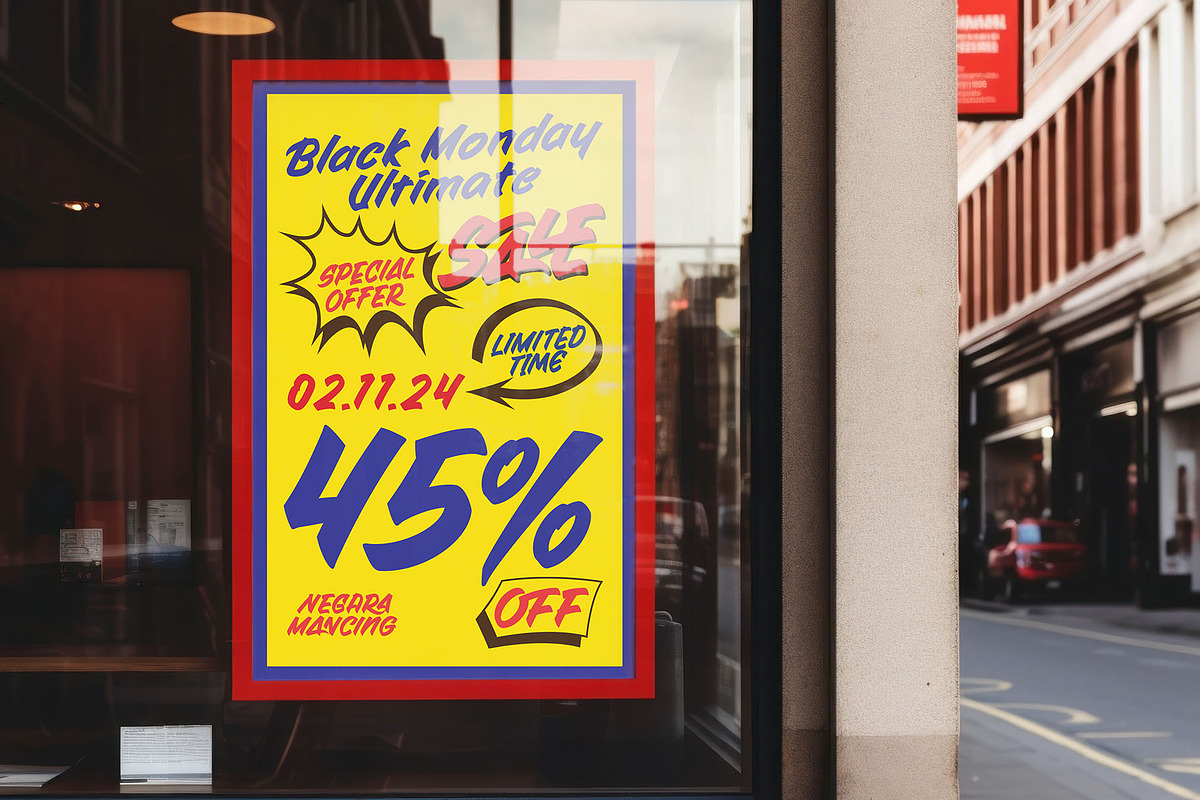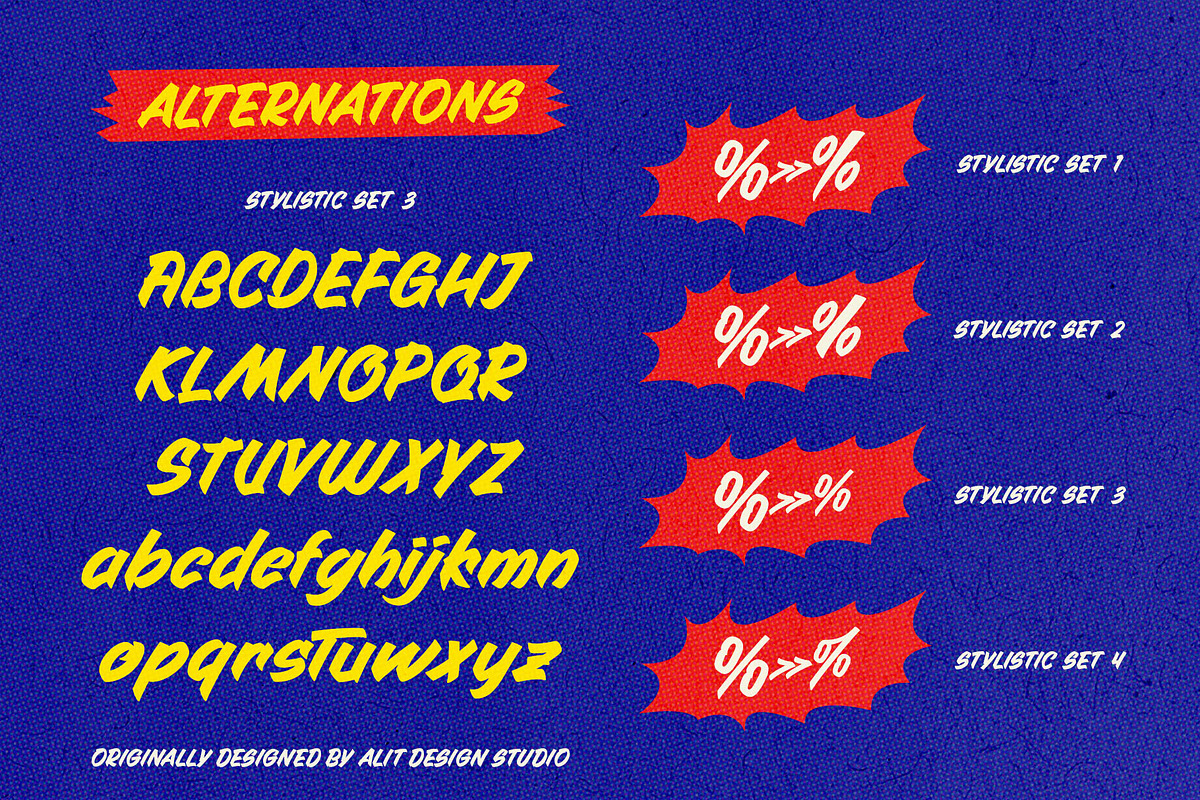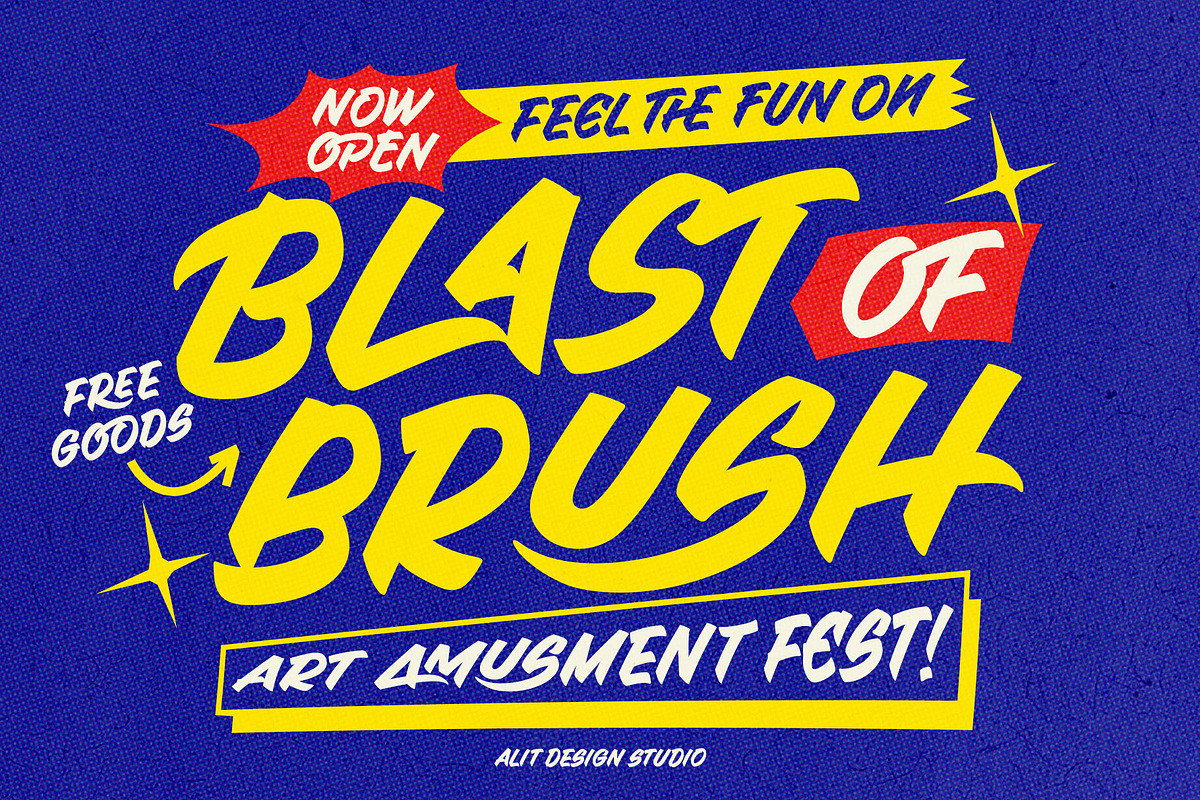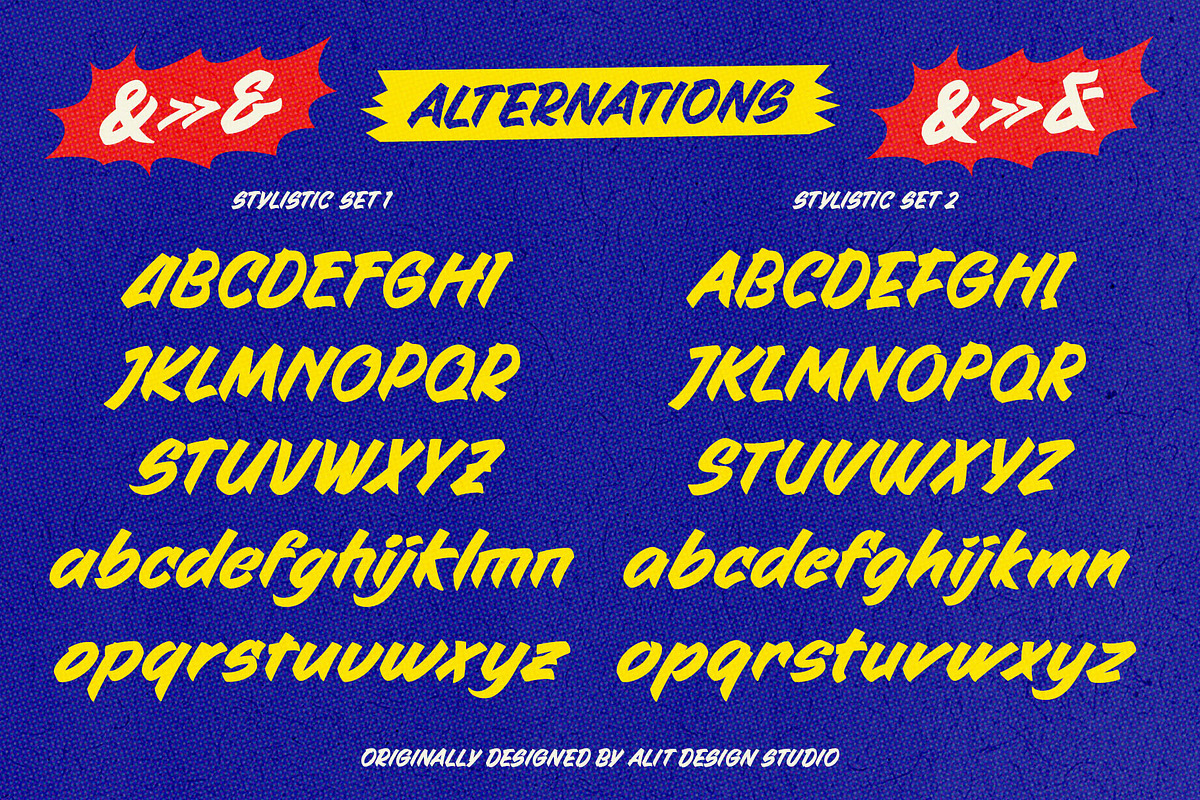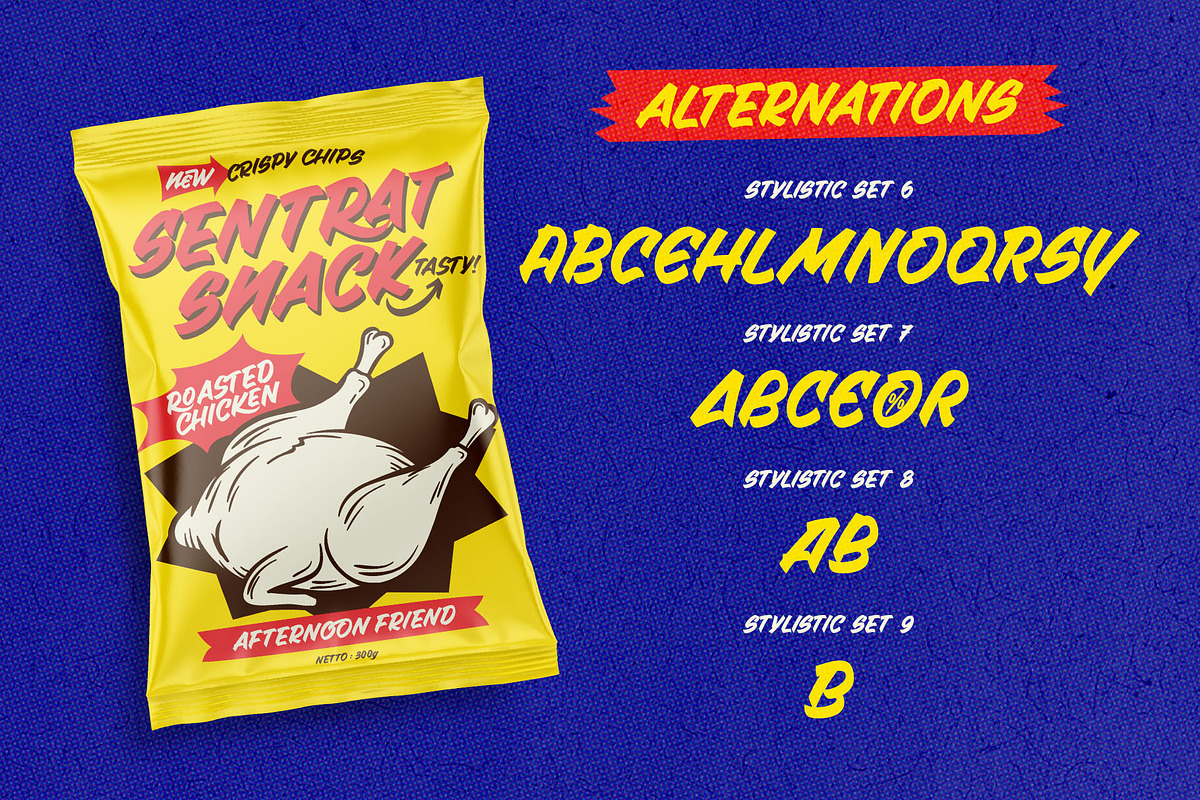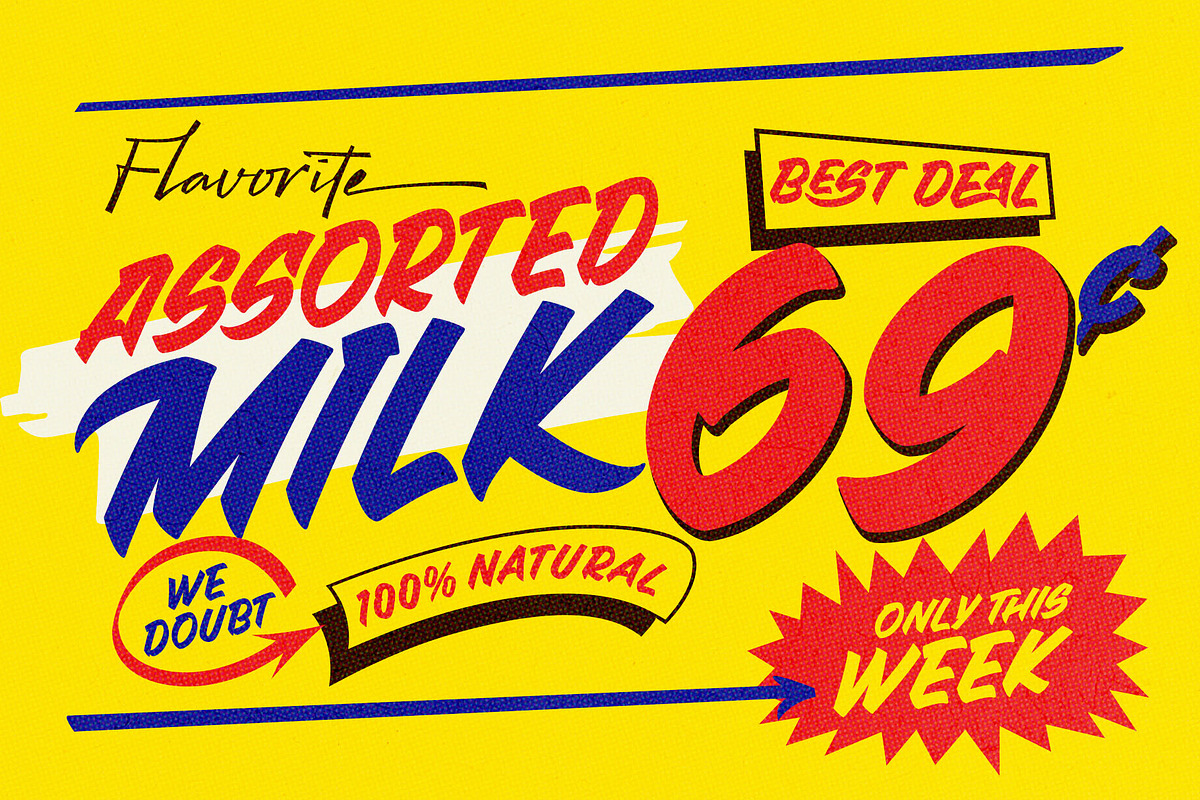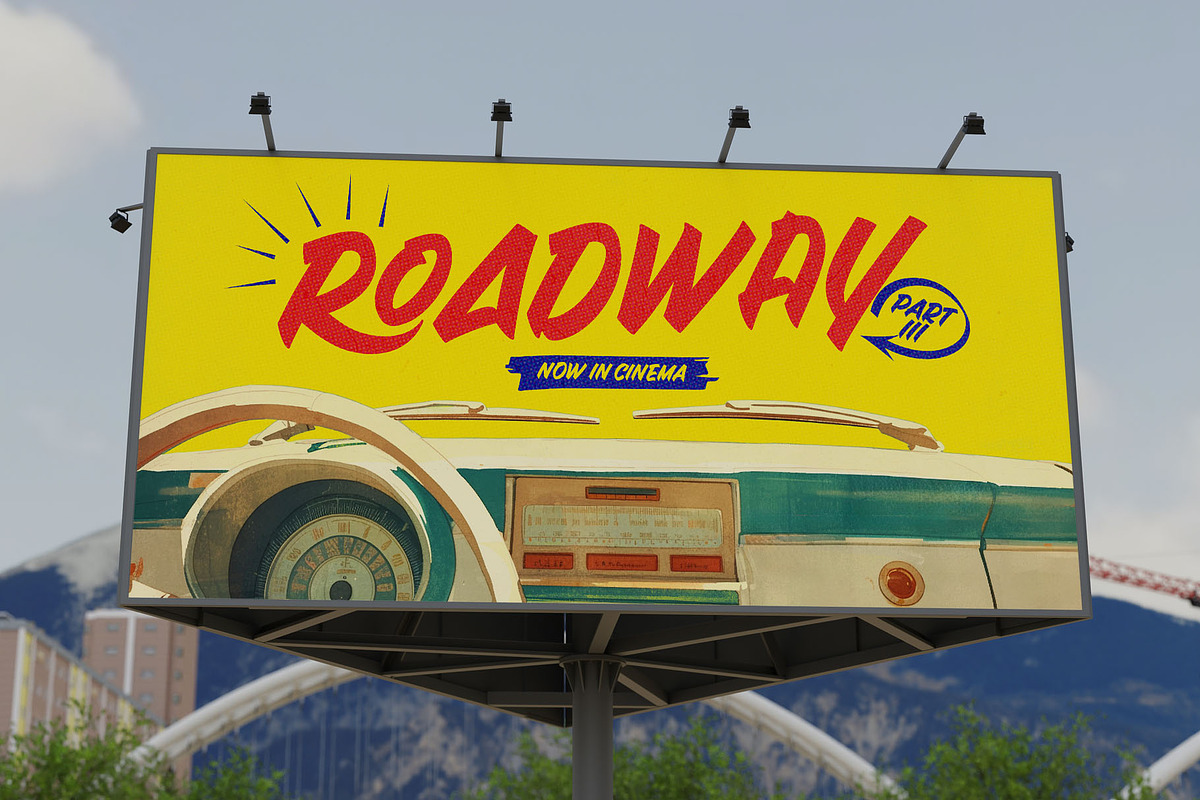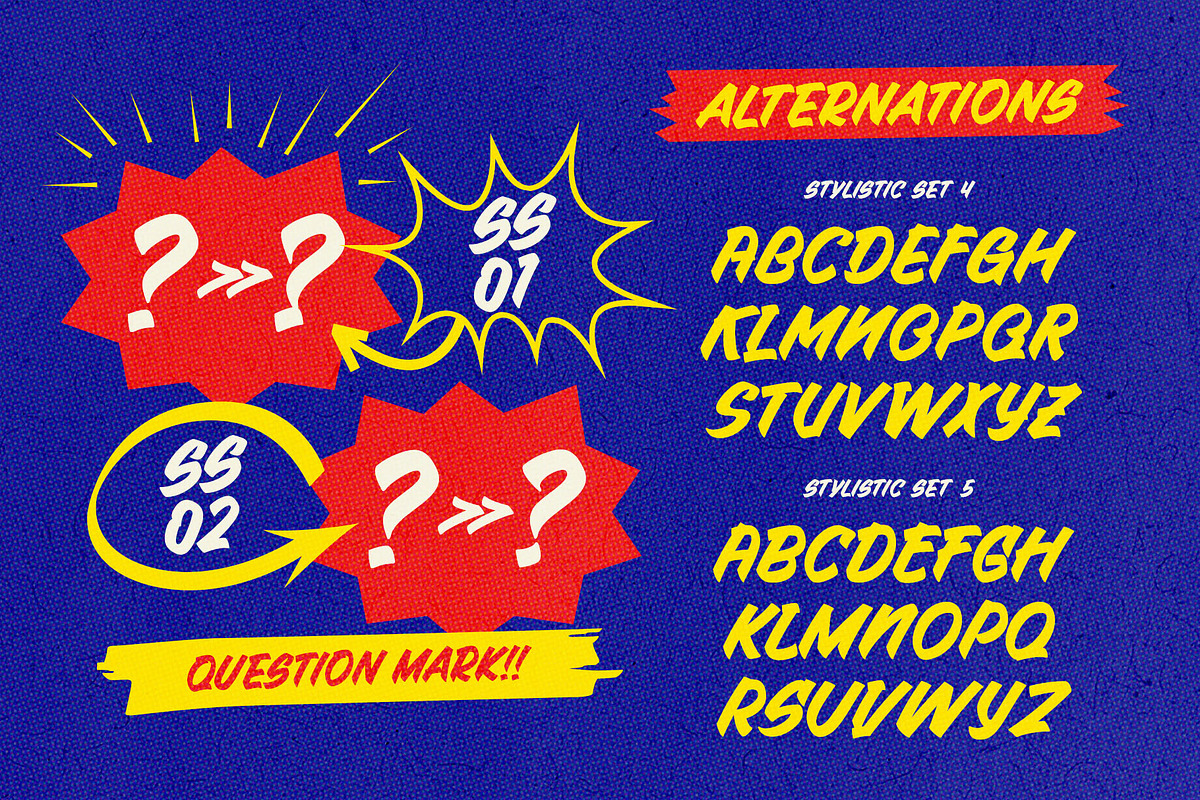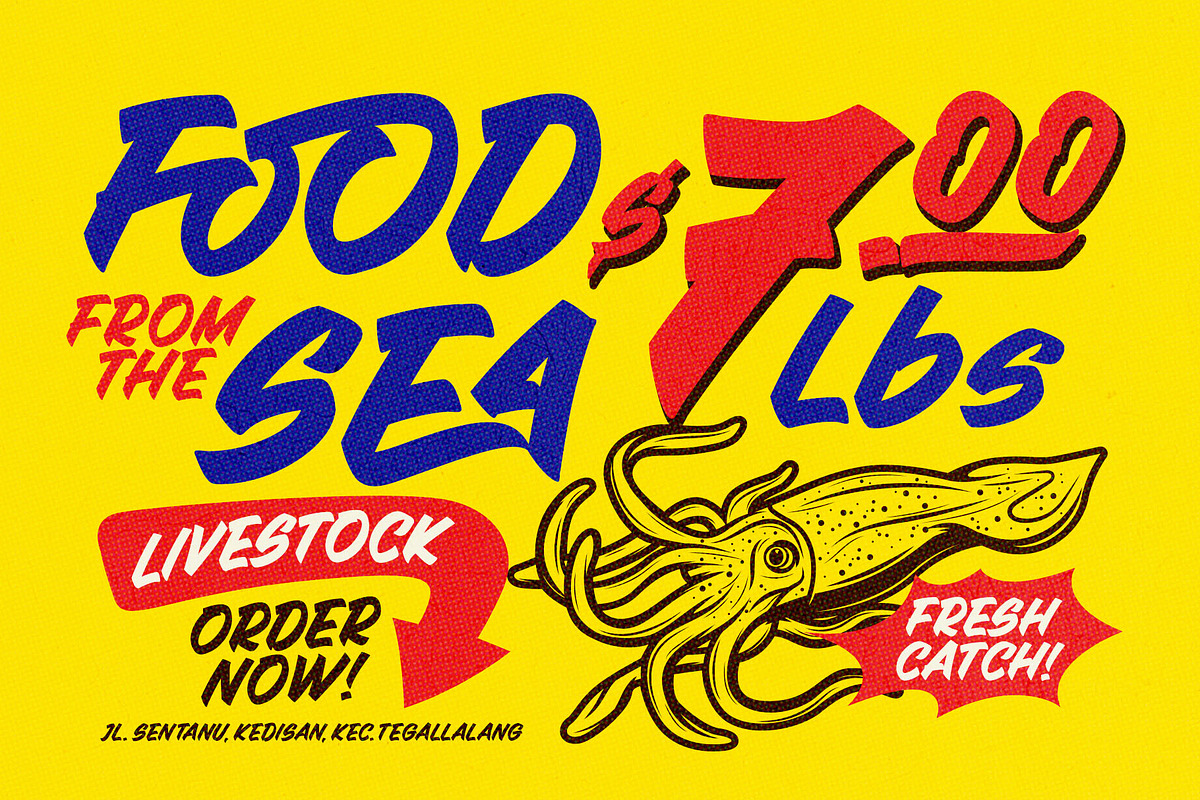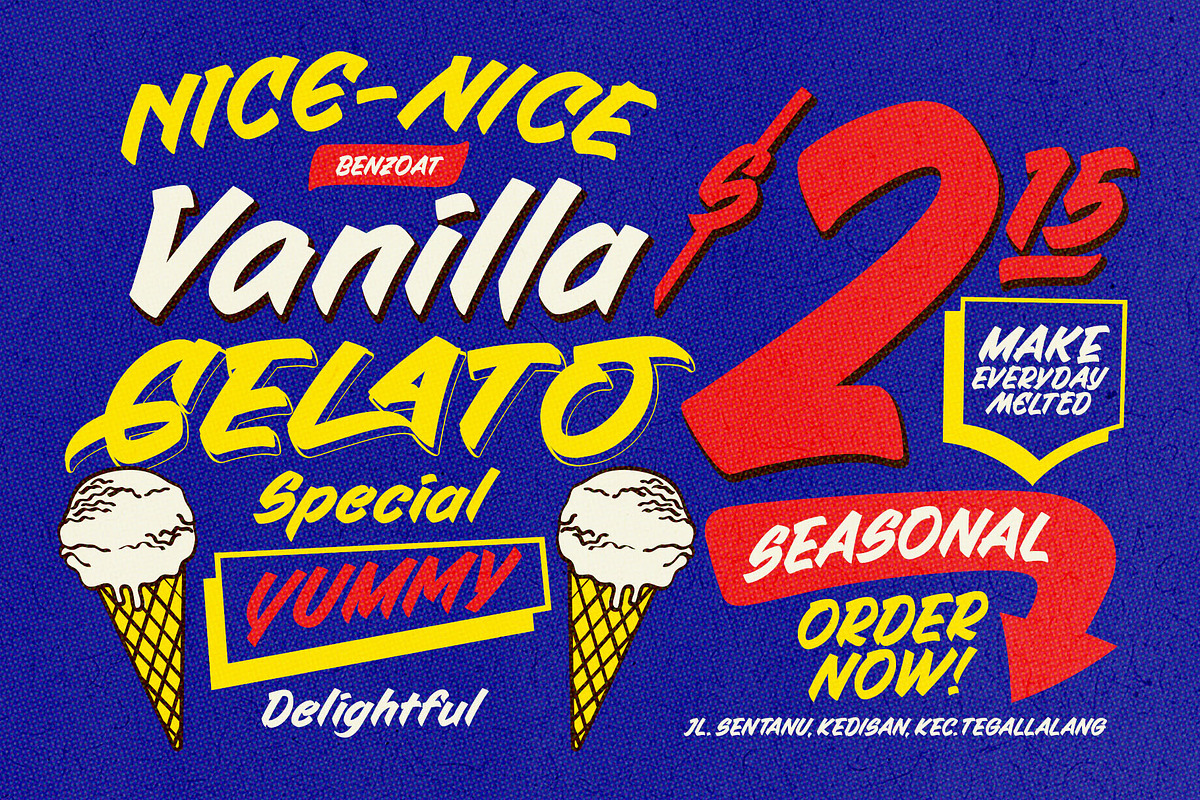
House of Hand Brushed Font
The House of Hand Brushed Font captures a spontaneous, handcrafted style with a smooth, flowing brush effect that suggests quick yet controlled strokes. This handwritten typeface exudes a cool, modern vibe with each character designed to bring a lively energy to any design. Perfect for art posters, signage, or branding materials, it merges a casual look with sophistication, giving designs a fresh, artistic feel.
- Character Set: It boasts an impressive 912 characters, providing a rich selection of glyphs.
- Ligatures: Custom-designed ligatures enhance natural flow and cohesion between letters, adding a touch of authenticity to the handwritten look.
- Alternates: Includes several stylistic alternatives, allowing designers to vary the look for different letters, adding depth and flexibility.
- PUA Encoded: With Private Use Area (PUA) Unicode support, it allows easy access to additional characters and ligatures from various design software.
- Multilingual Support: Covers multiple languages, making it versatile for international projects and audiences.
With its dynamic, fast-brushed strokes and stylish undertones, House of Hand Brushed is a standout font for creative, art-inspired designs and bold typography.